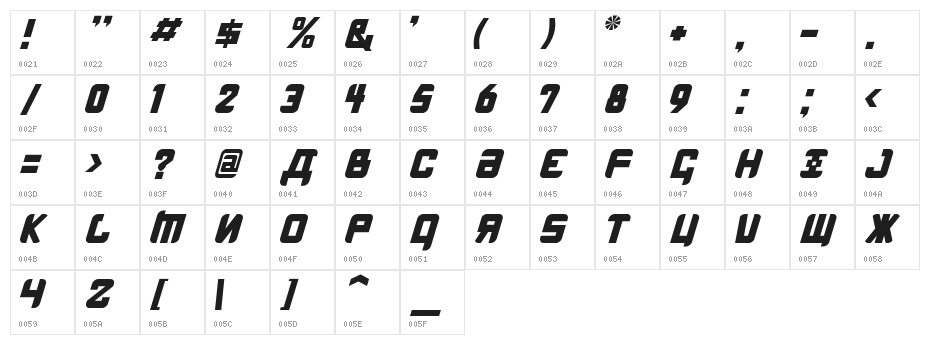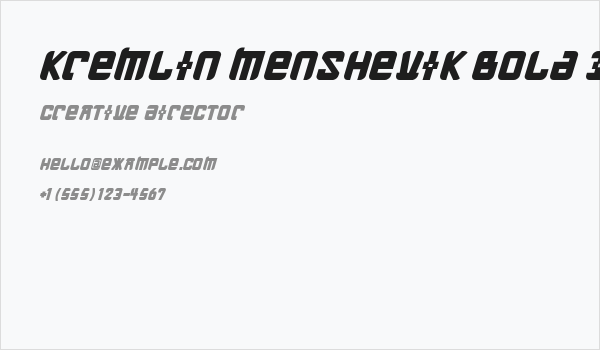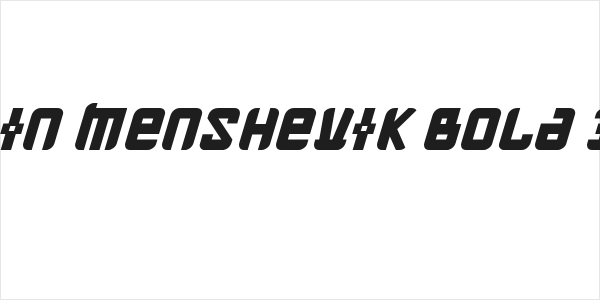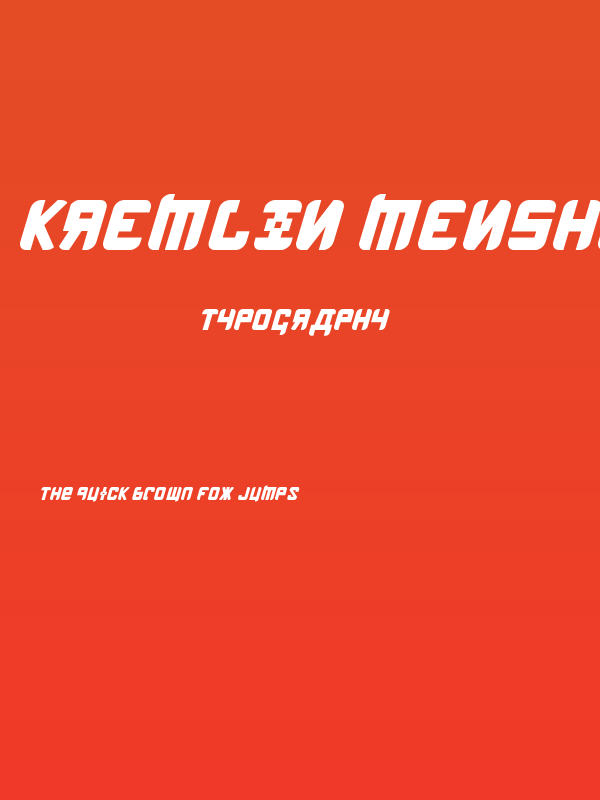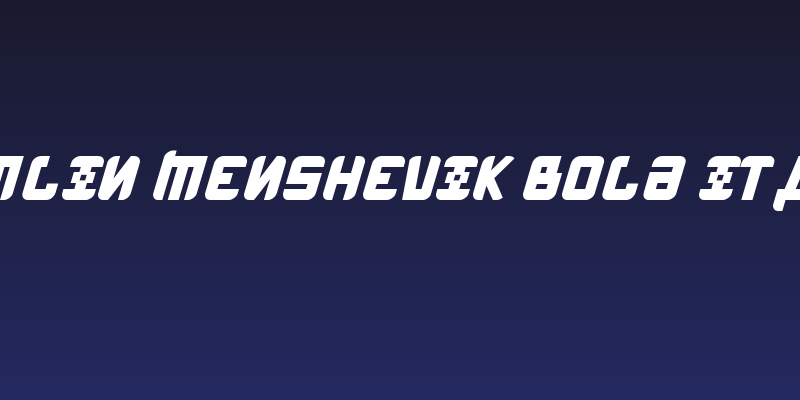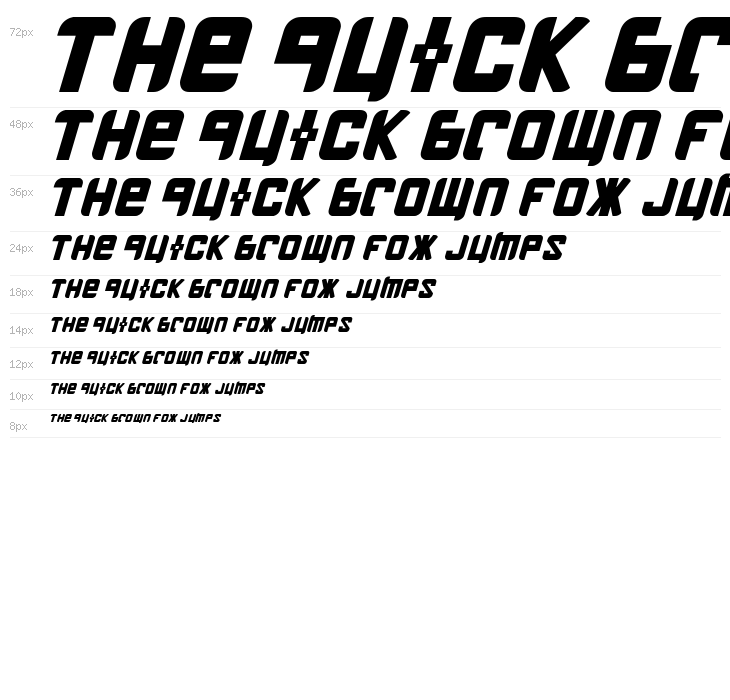
Kremlin Menshevik Bold Italic Font
Kremlin Menshevik Bold Italic Description
This font features a bold and italicized style with a strong geometric influence. The characters are angular and dynamic, giving a sense of movement and energy. The uppercase and lowercase letters maintain a consistent slant, enhancing the italic effect. The numbers are bold and easily readable, while the special characters are distinct and match the overall style. The font's design is reminiscent of constructivist and industrial aesthetics, making it suitable for impactful and attention-grabbing text.
| Overall Style | Modern, Industrial |
| Proposed Projects | Ideal for posters, headlines, branding, and any design requiring a strong, industrial look. |